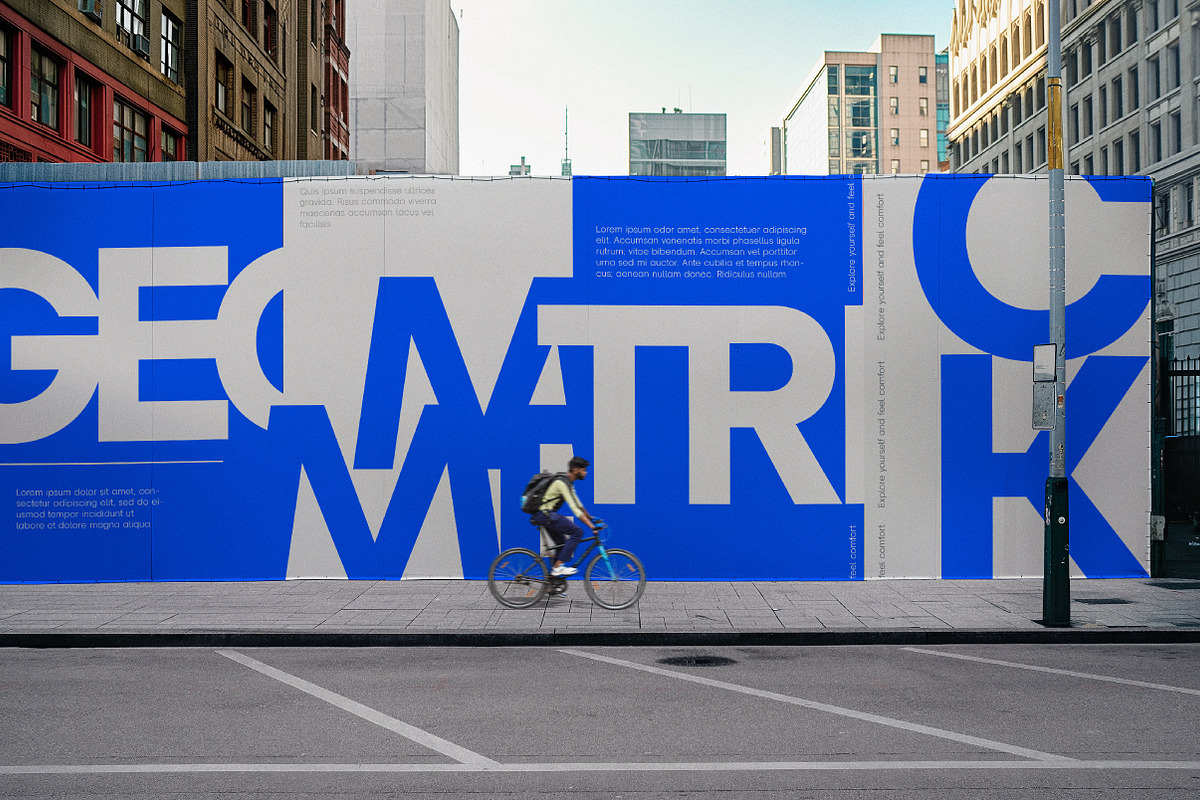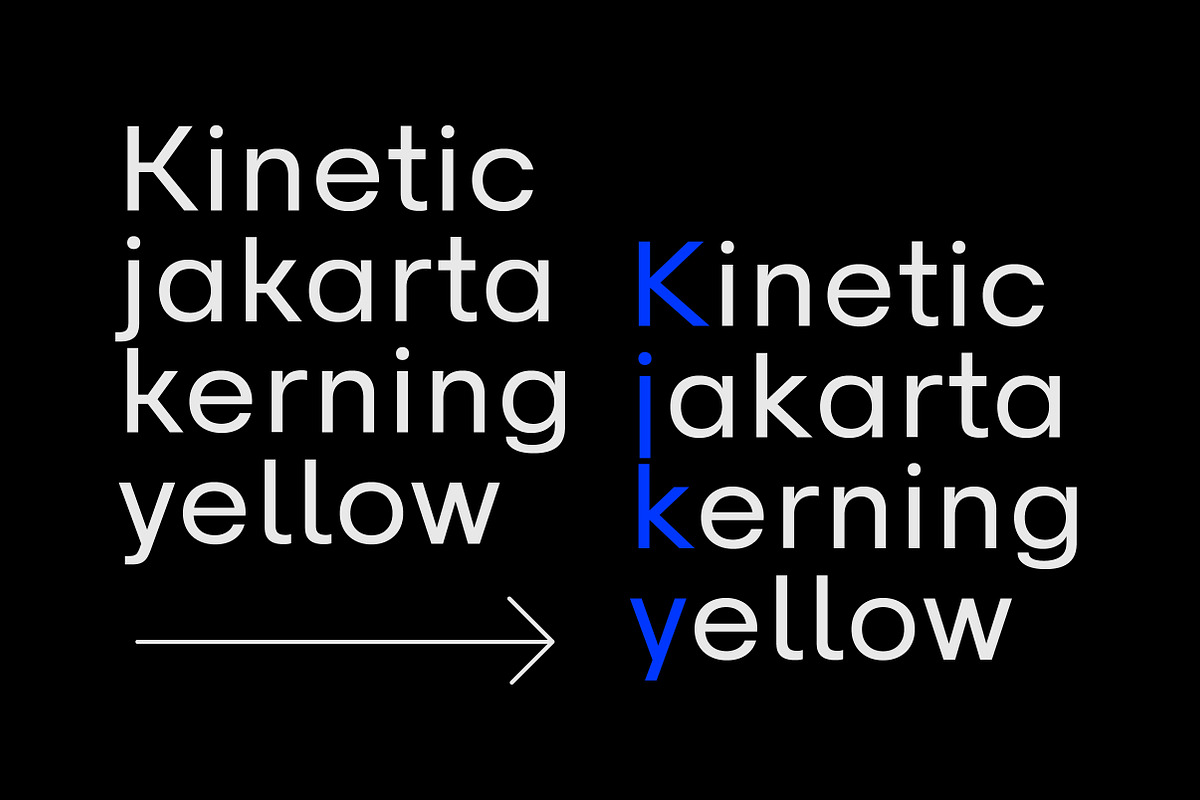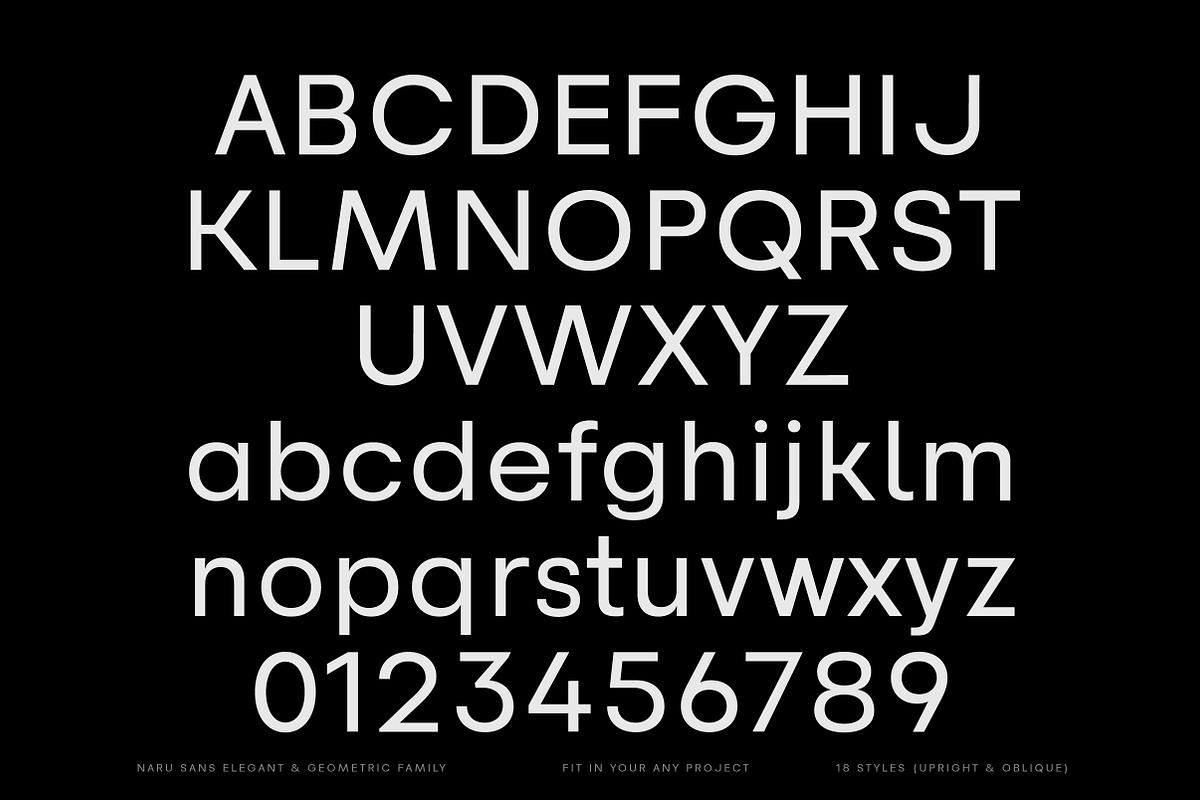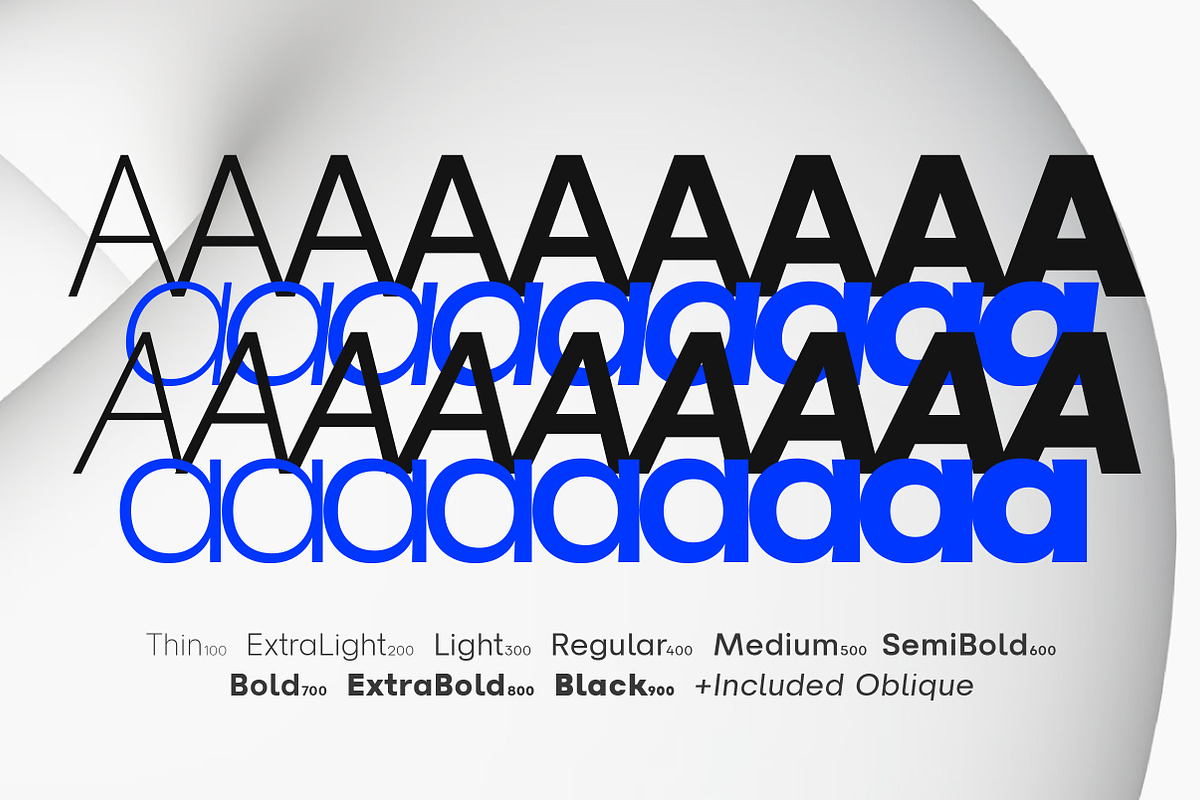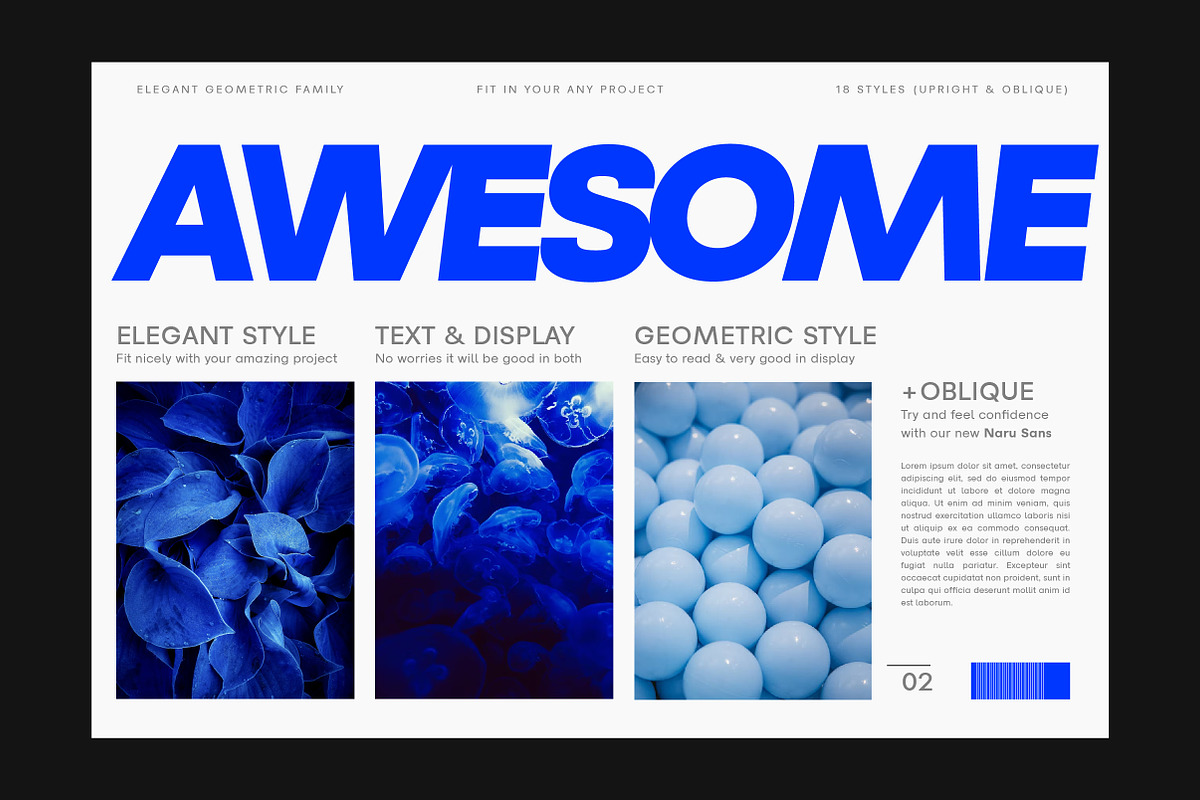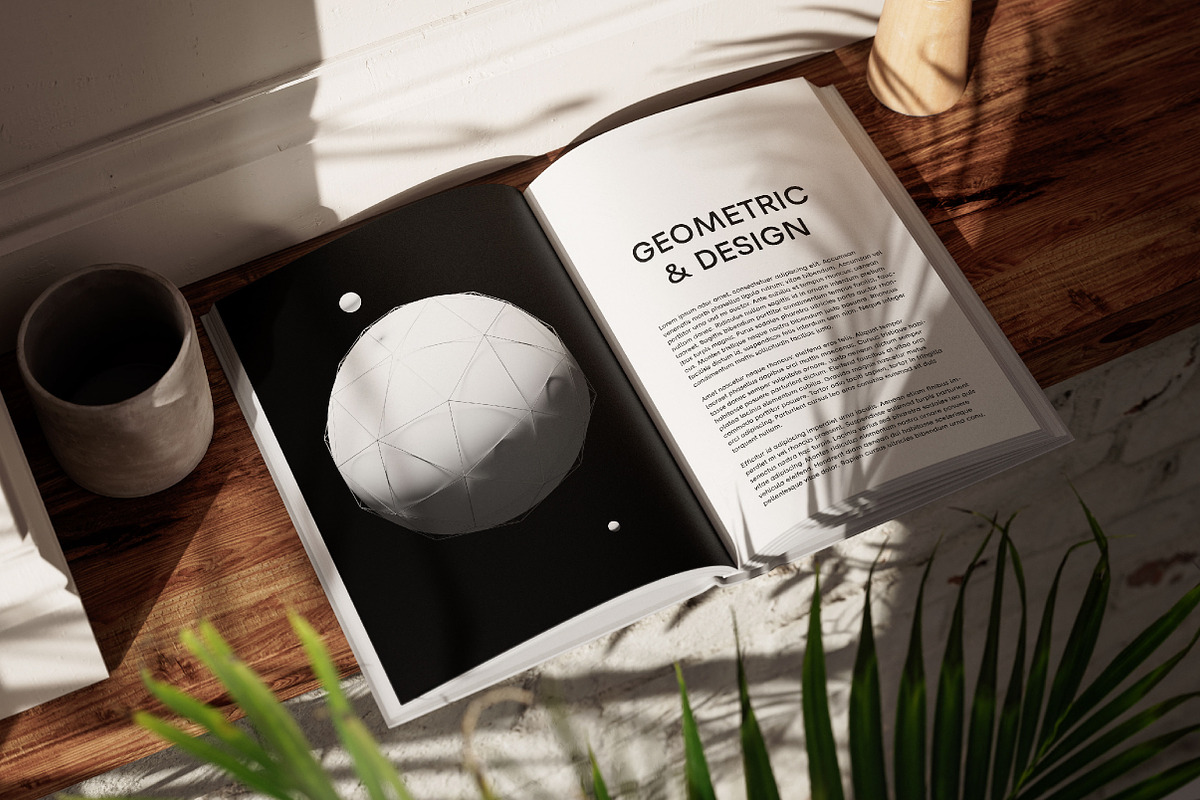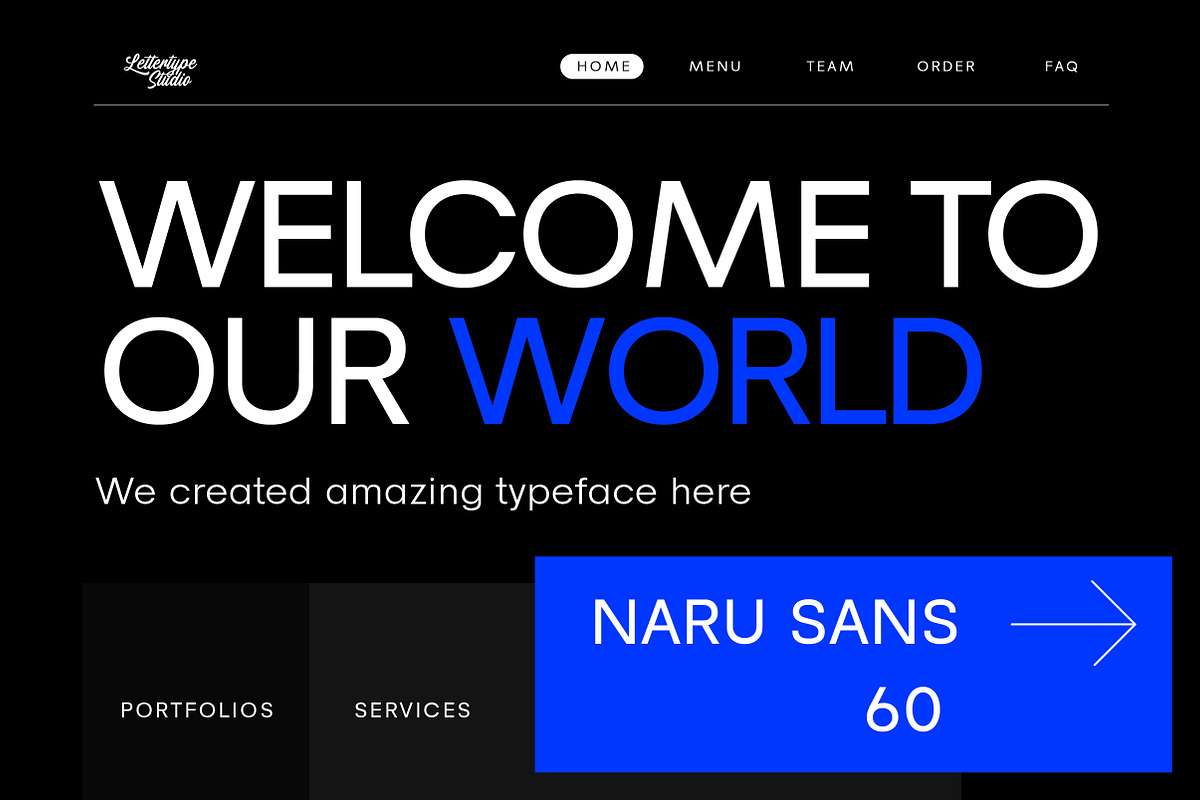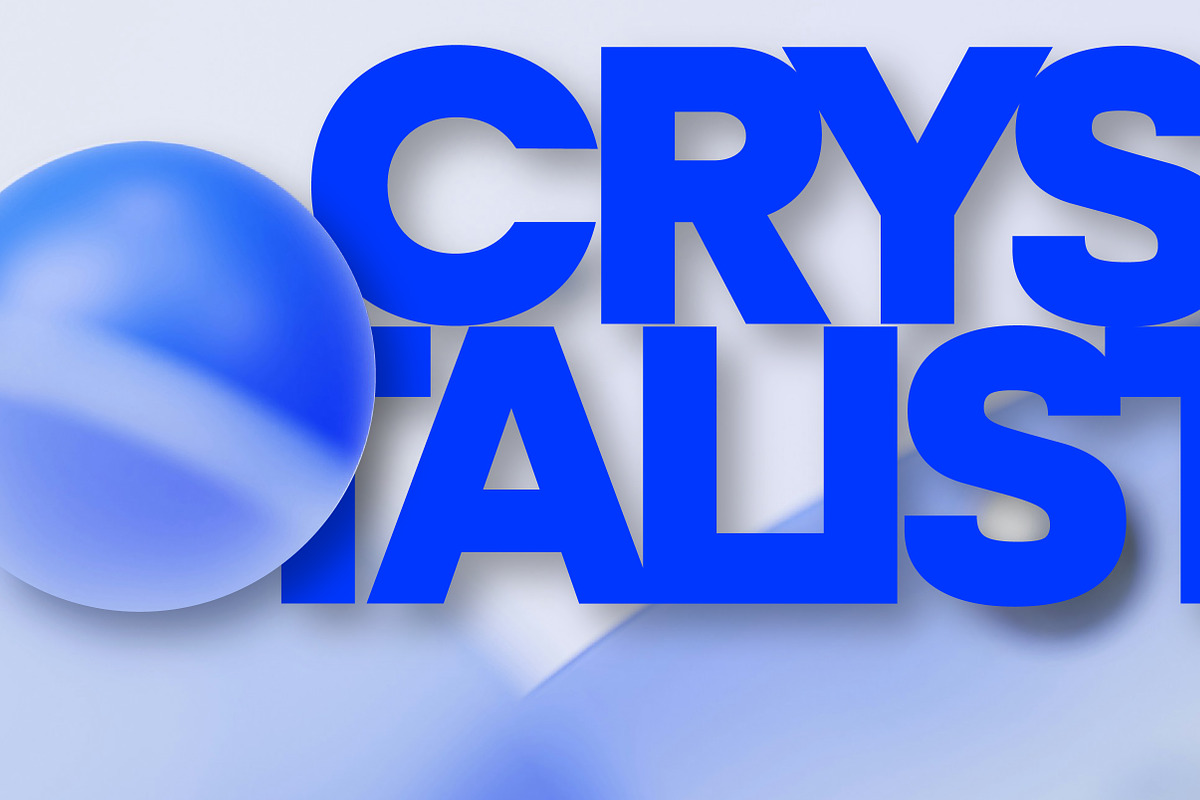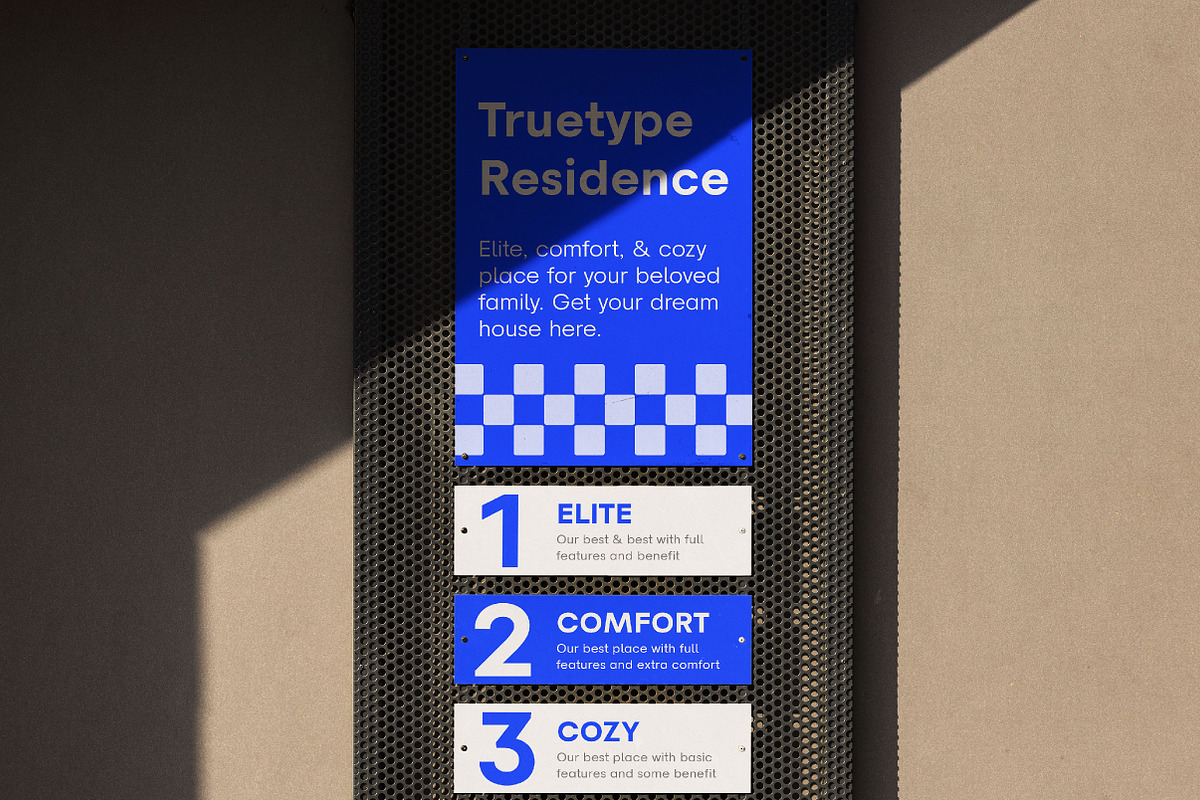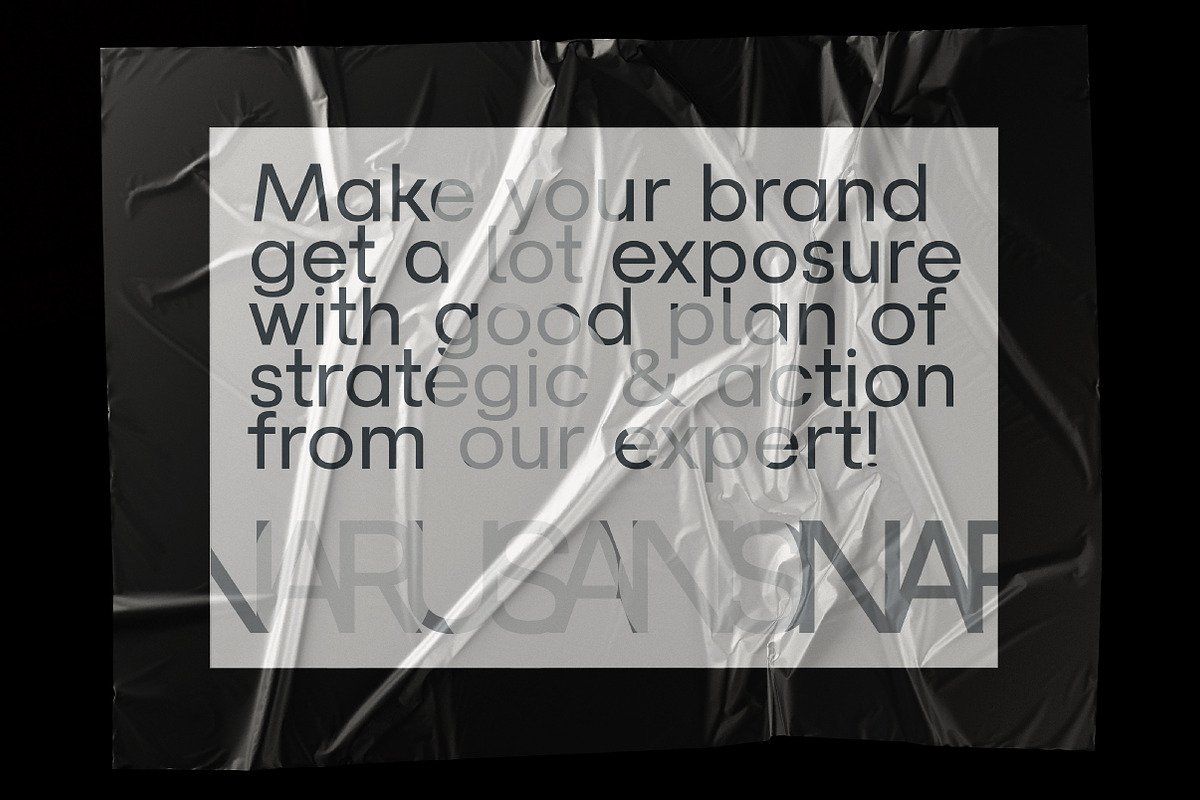
Naru – Geometric Branding Sans
Naru Sans is a modern and versatile sans-serif geometric typeface infused with subtle grotesque elements, that delivers simplicity and natural while exuding a strong personality with refined proportions. Designed for readability and versatility, this font family balances clean, geometric precision with the warmth and flexibility of grotesque design.
There is a wide range of weights, from thin to black, including 18 weights and oblique style. Opentype features include stylistic alternates (K, j, k, & y), figure variations (superiors, inferiors, fractions, circled numerators, and standard ligatures), and broad Latin language support.
These geometric grotesque fonts are crafted with impeccable legibility and sleek, seamless, aesthetic appeal. They are clean, modern, and versatile options for any project like fashions, print design, social media, creatives, branding, UI/UX, web typography, packaging, or editorial design. It will elevate your creative projects and keep your designs on-trend.
Naru Sans Features:
- 18 Styles
- Upright & Oblique
- 498 Glyphs Total
- 265+ Languages Support
- Corporate branding, editorial layouts & modern advertising
- Fashion lookbooks, packaging & lifestyle design
- Web UI/UX, digital dashboards & tech interfaces
- Magazines, posters & minimalist marketing visuals
- Creative agencies, startups & brand identity systems